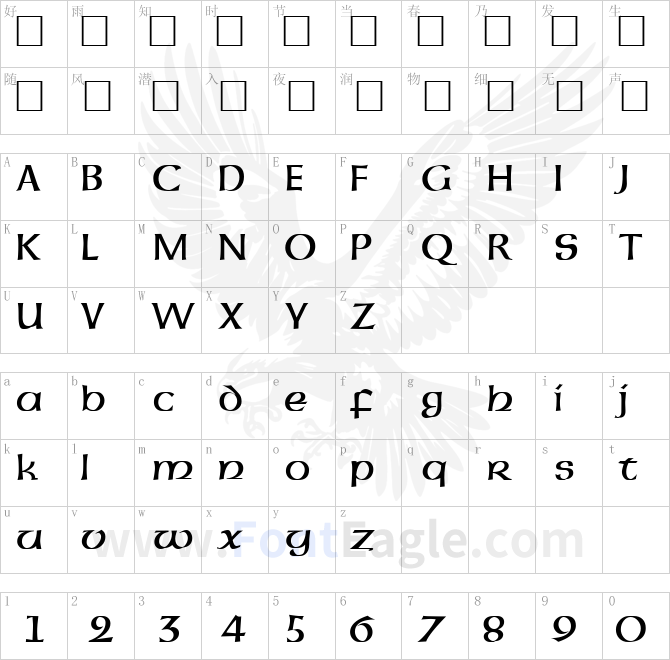
- Font name:UncialRoundhand
- Font Subfamily ID:Weatherly Systems, Inc. UncialRoundhand Regular
- Font Full Name:UncialRoundhand Regular
- Postscript:UncialRoundhand